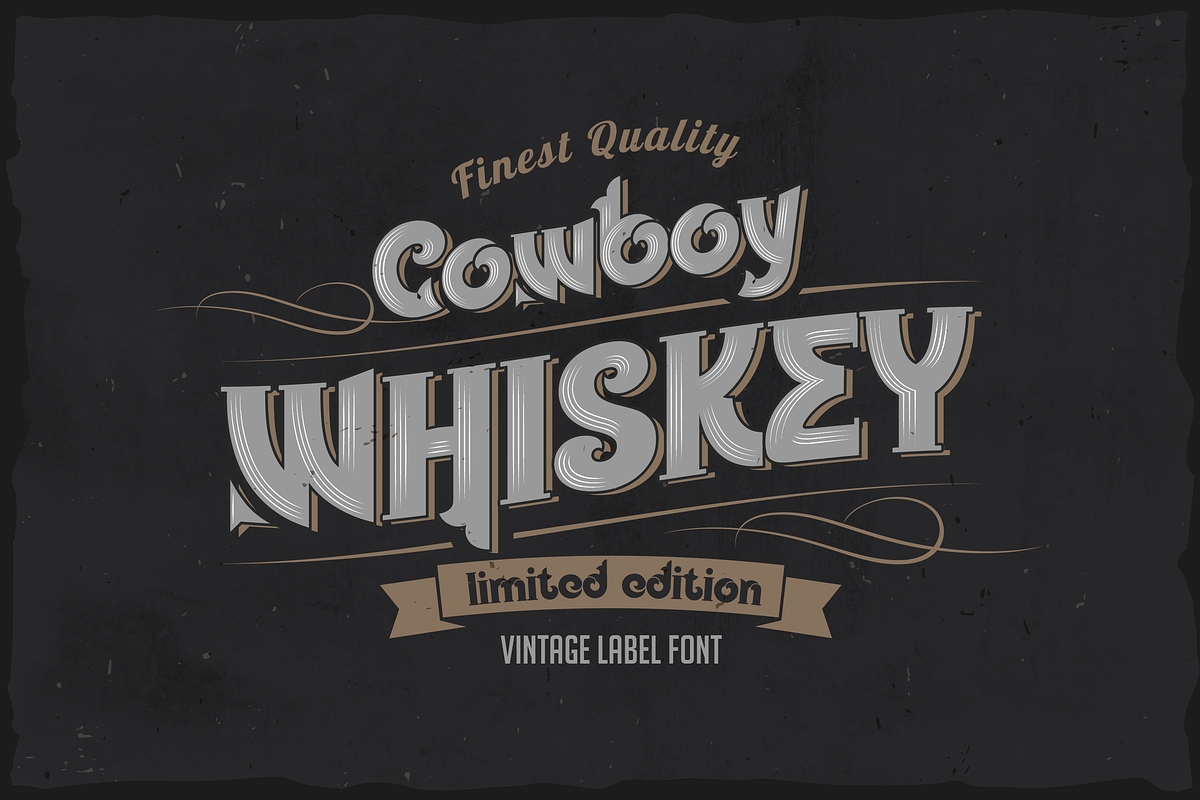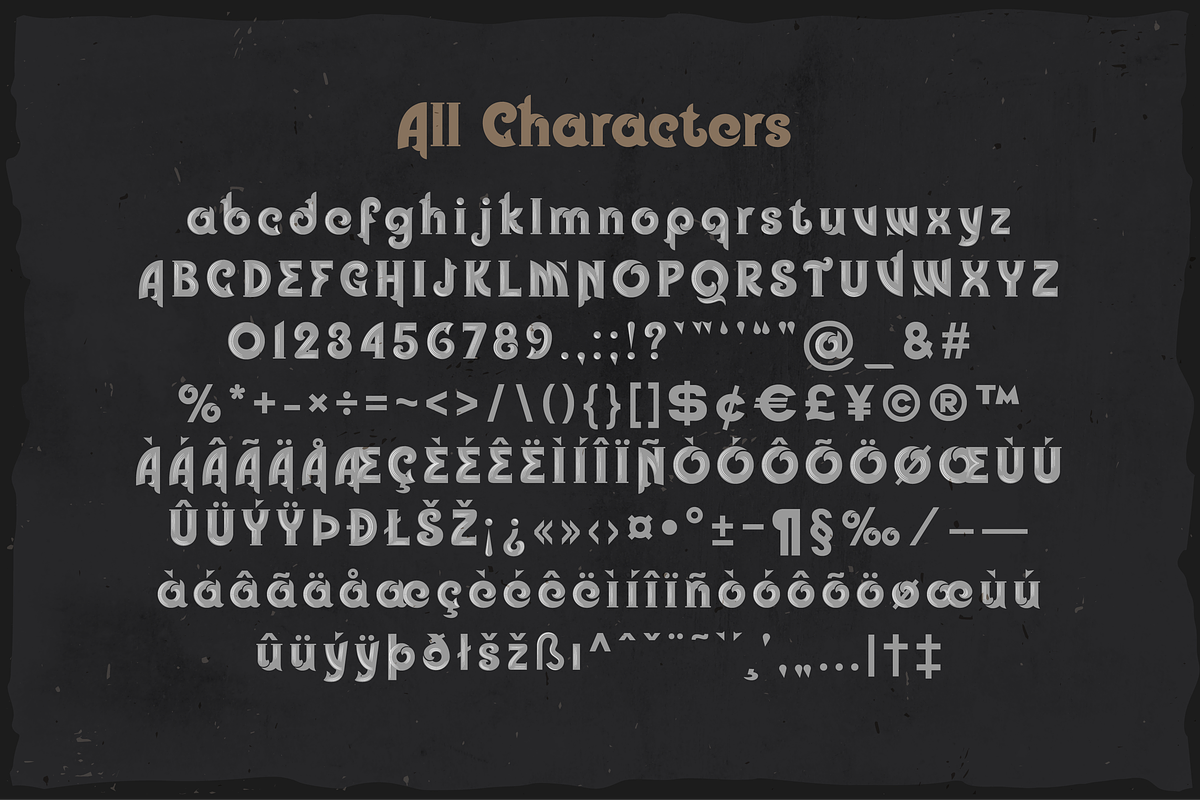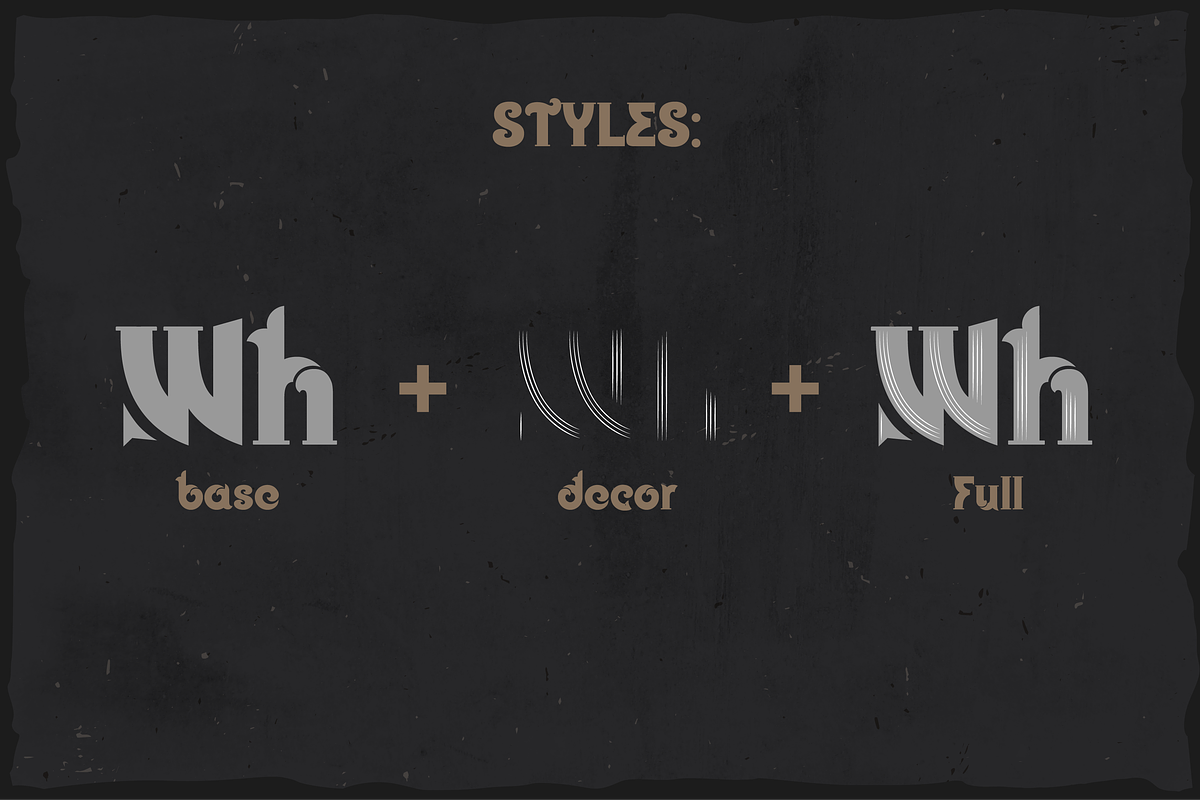
Cowboy Whiskey - vintage label layer
Cowboy whiskey - vintage layered font. Good for labels, logos, headlines and more. Contains 3 fonts in OTF format, base, decorative layer, and generalized.